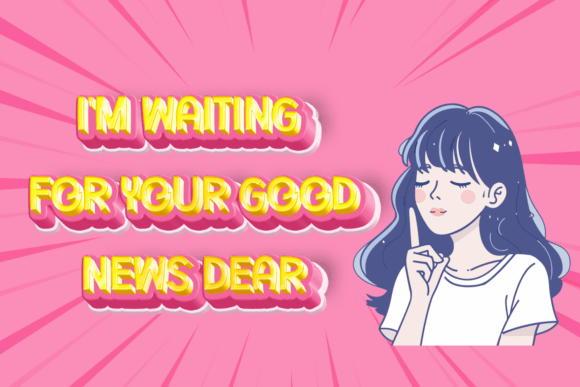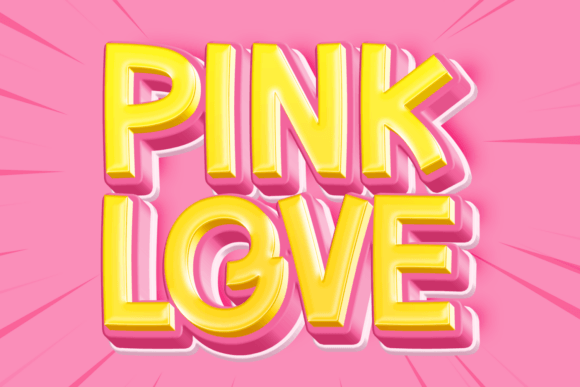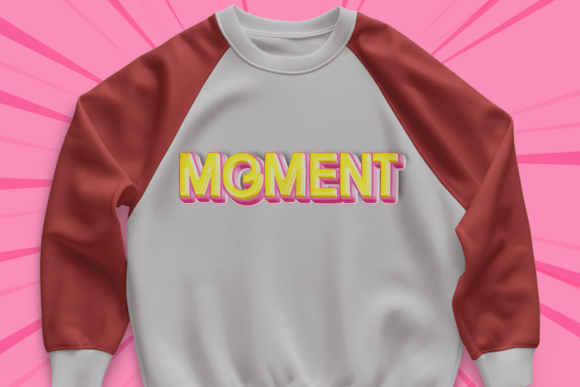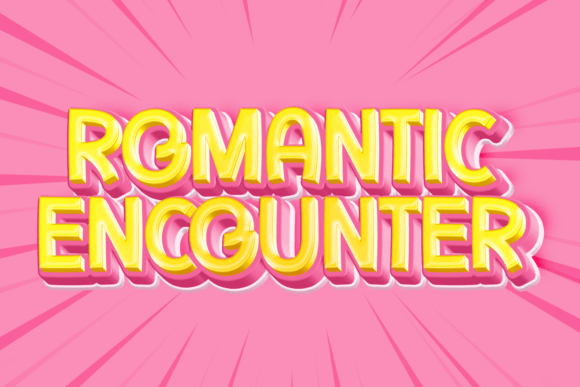
Introduction to Block Letter Font
Illuminate your world with Block Letter.
This Cartoon Style Typeface is not just a font, but a riot of joy and cheer, with an unmistakable charmingly chunky build Perfect for Comic Book creators or merely for producing impressive headlines, it brings a measure of fun and playfulness to any design.
Key Features of Block Letter Font
Why Choose Block Letter Font?
Block Letter Font offers exceptional quality and versatility, making it a valuable addition to your design toolkit. Whether you’re creating for personal projects or commercial use, Block Letter Font delivers professional results.